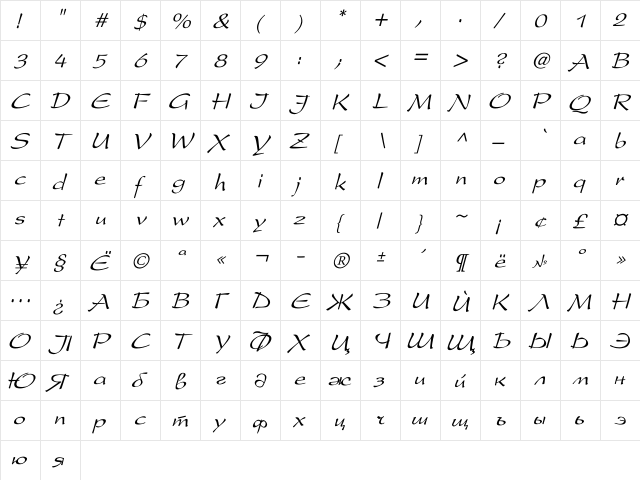
Present_Script Italic Font Preview
Present_Script Italic
Present_Script Italic Font Details
Design Context for Present_Script Typeface
Present_Script brings a calligraphic fluidity to the page — its connecting strokes and expressive curves give it an unmistakably human quality.